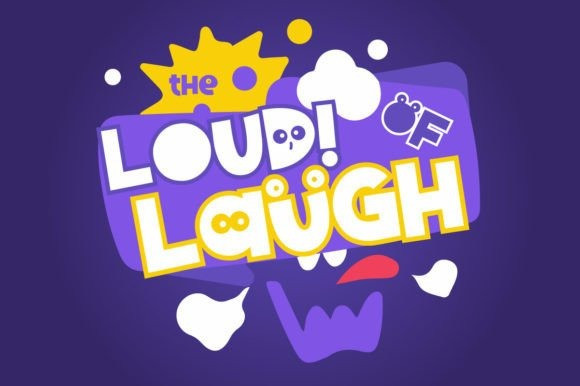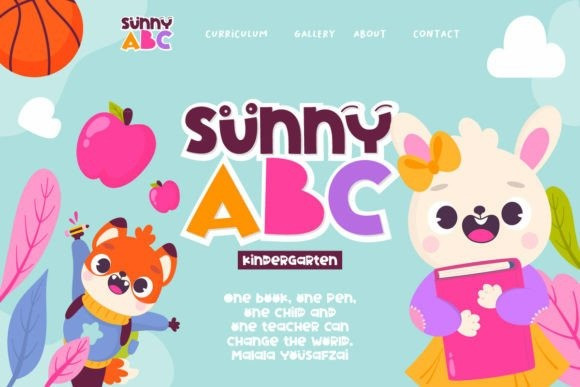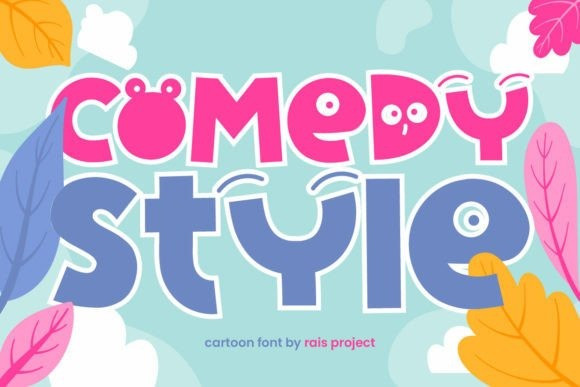
Comedy Style Font
Comedy Style Font is a funny display font with a comic emoticon style. This font has a unique character in each letter so it will not make you bored. Use this font to add a funny and goofy feel to your designs, such as comics, invitation cards, greeting cards, posters, brochures, covers, product packaging, brand logo, label, web page, quotes, etc.